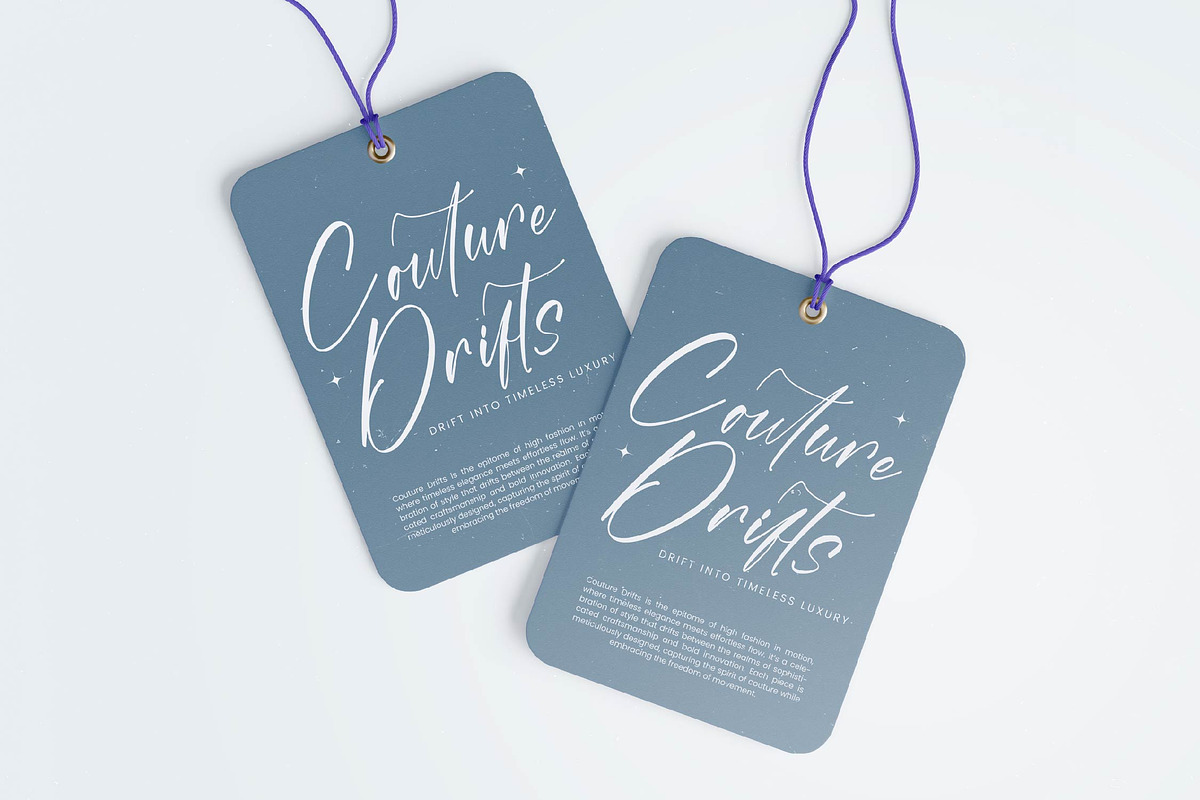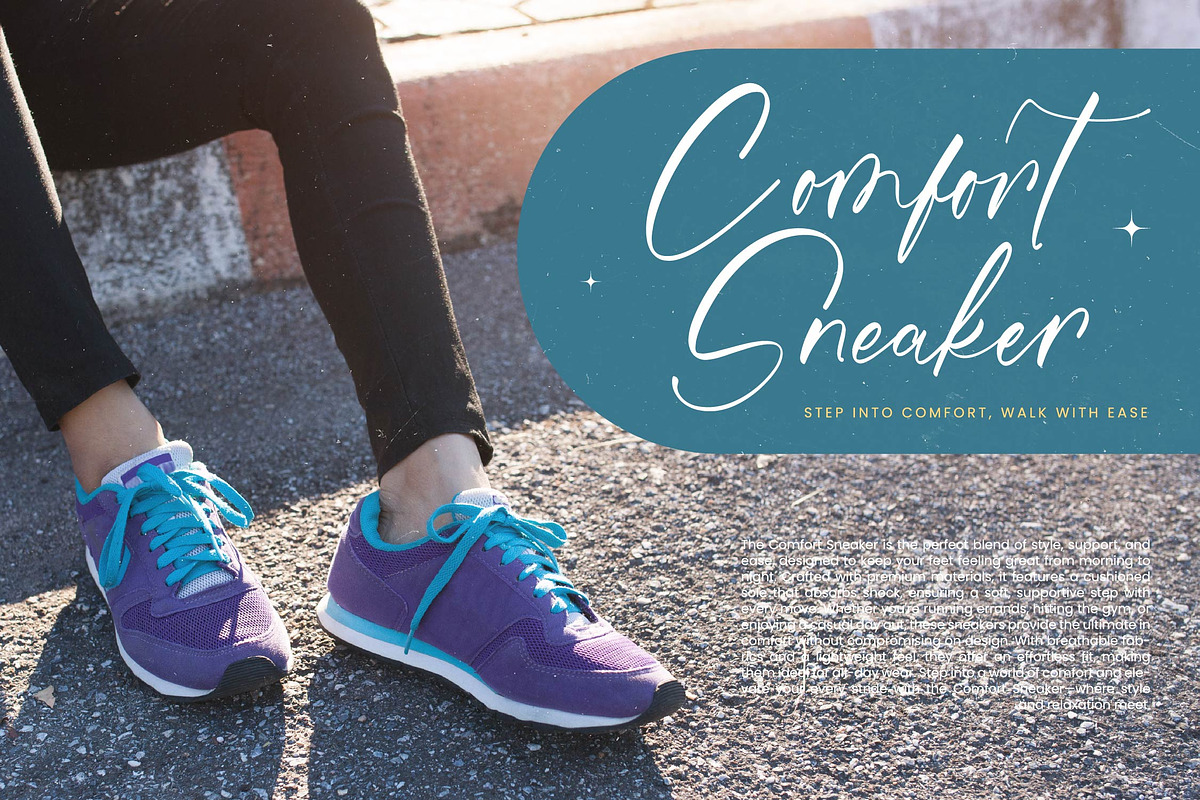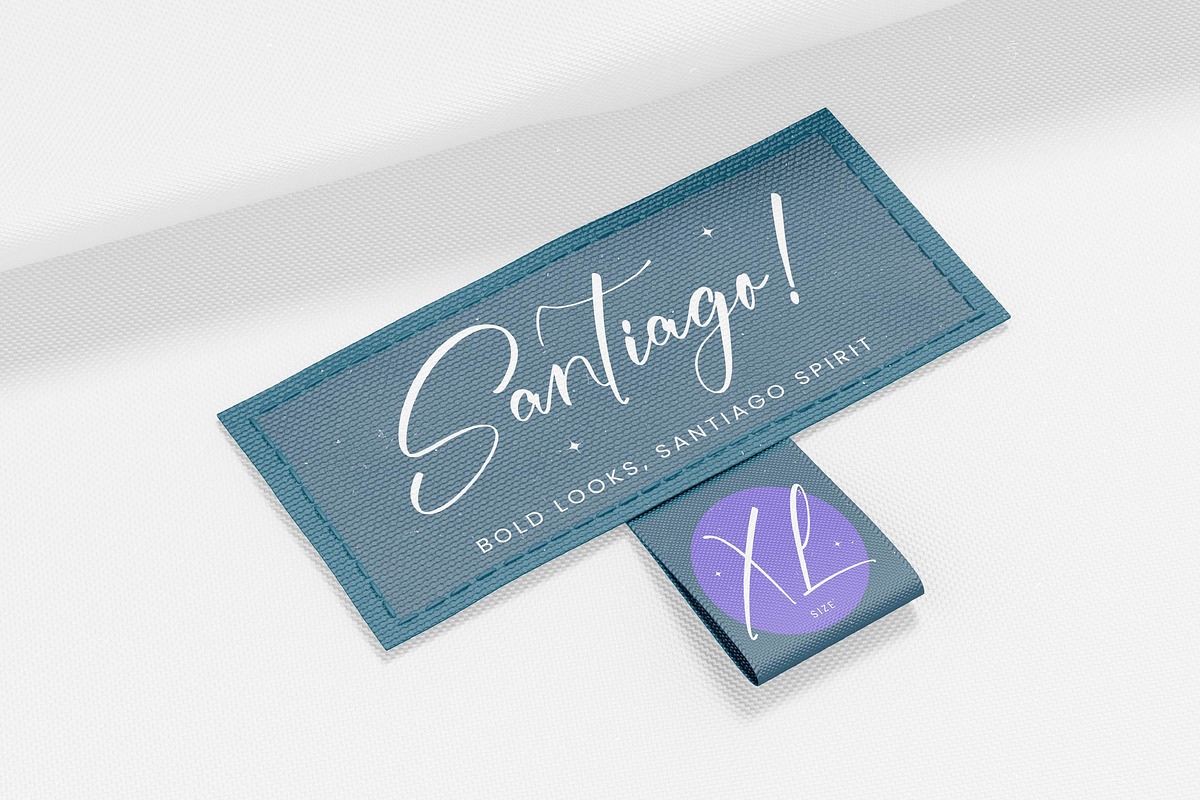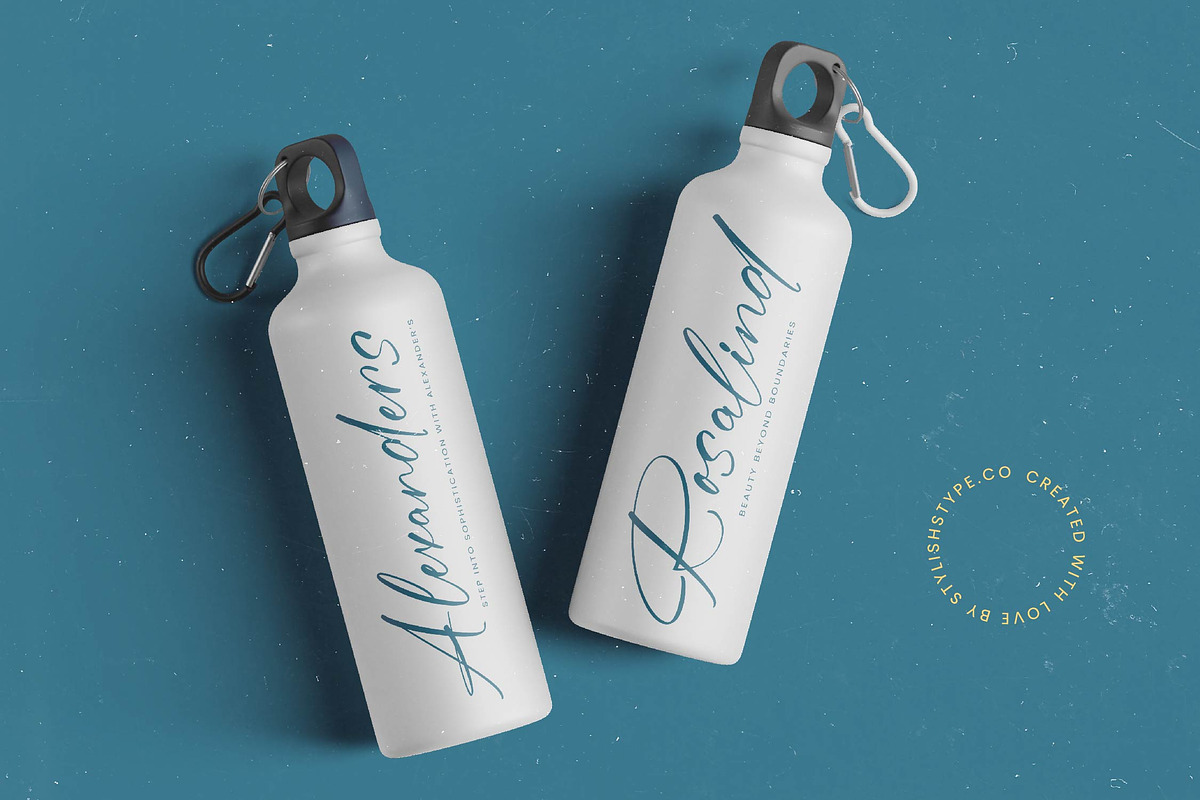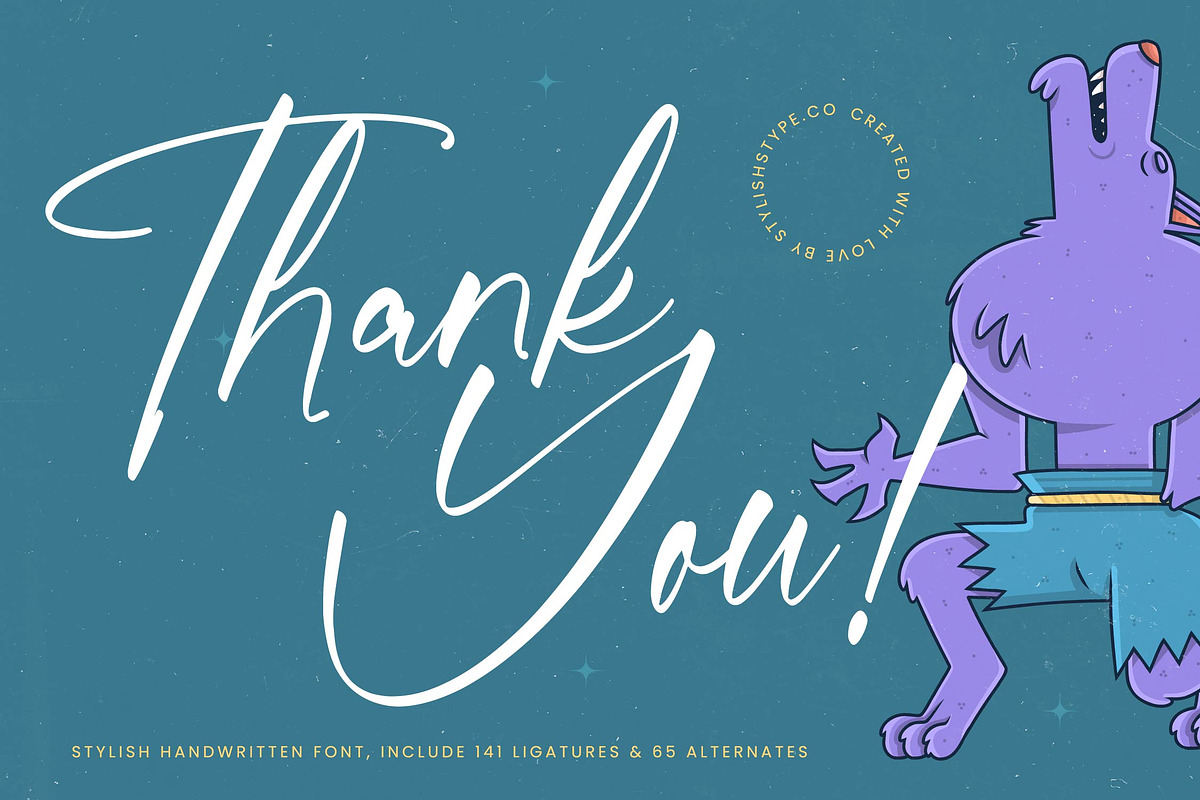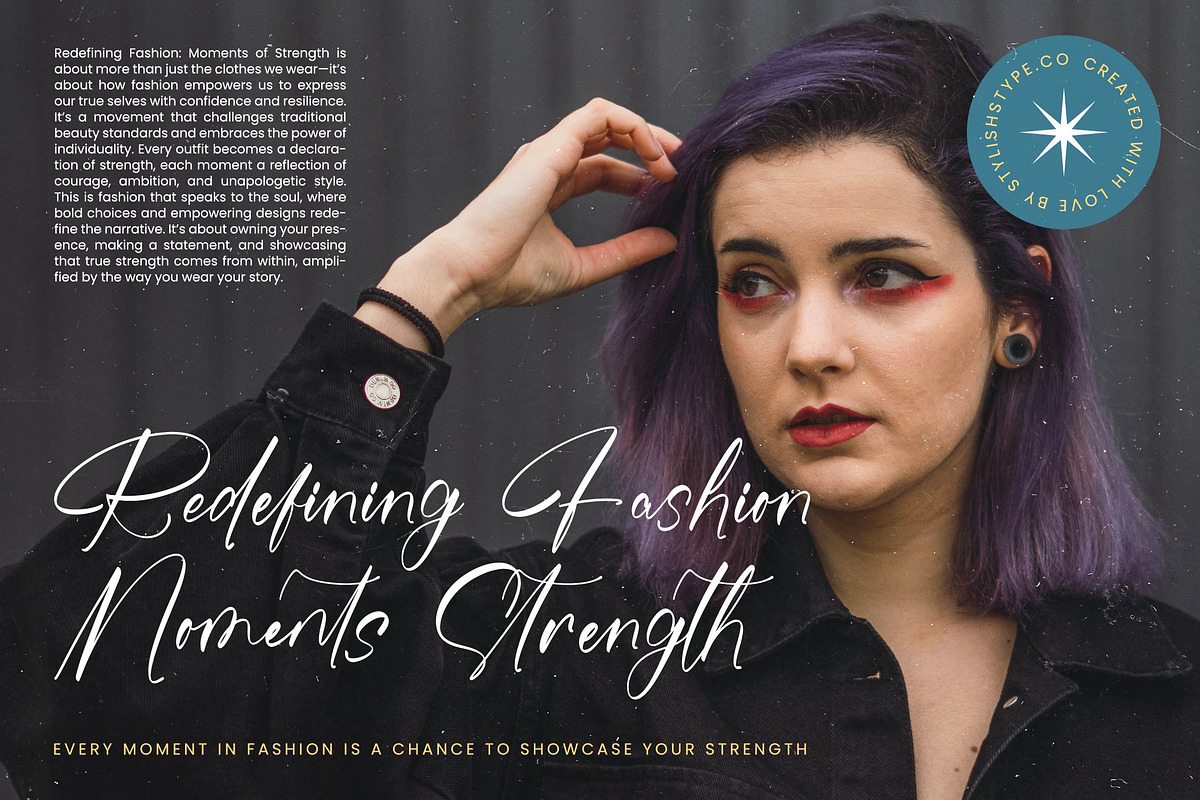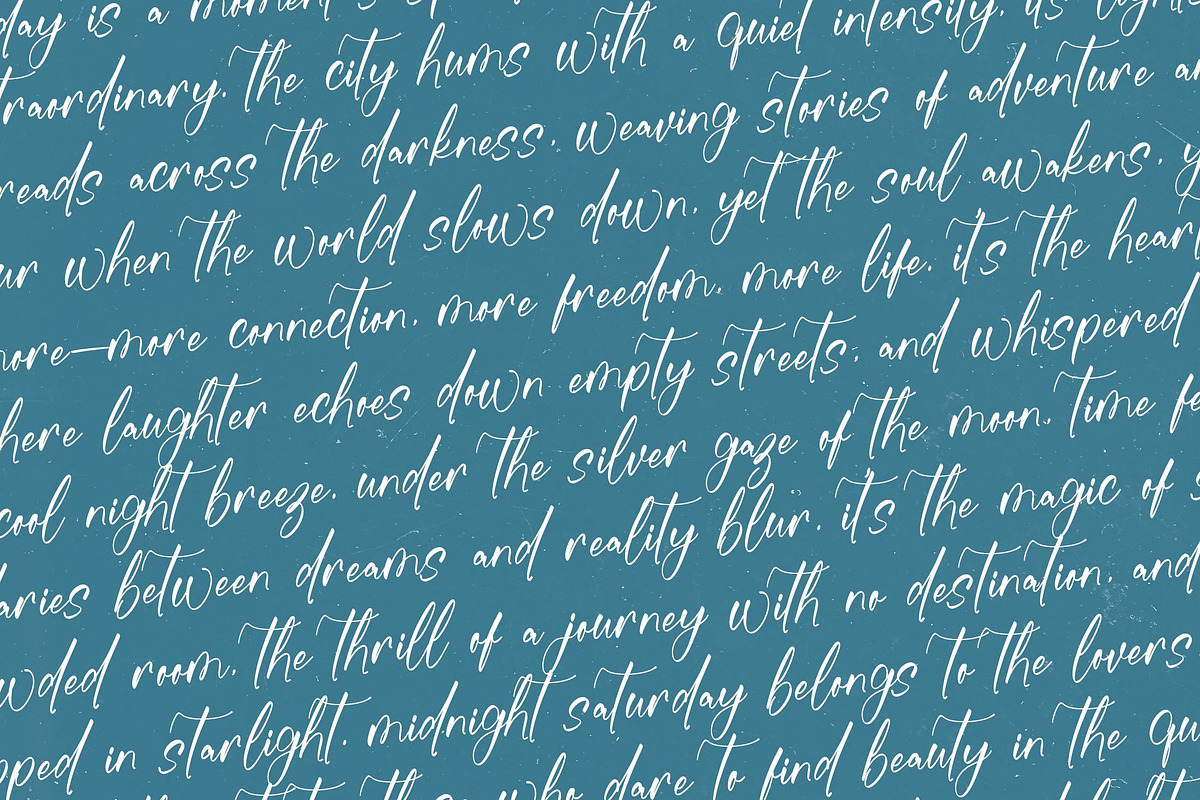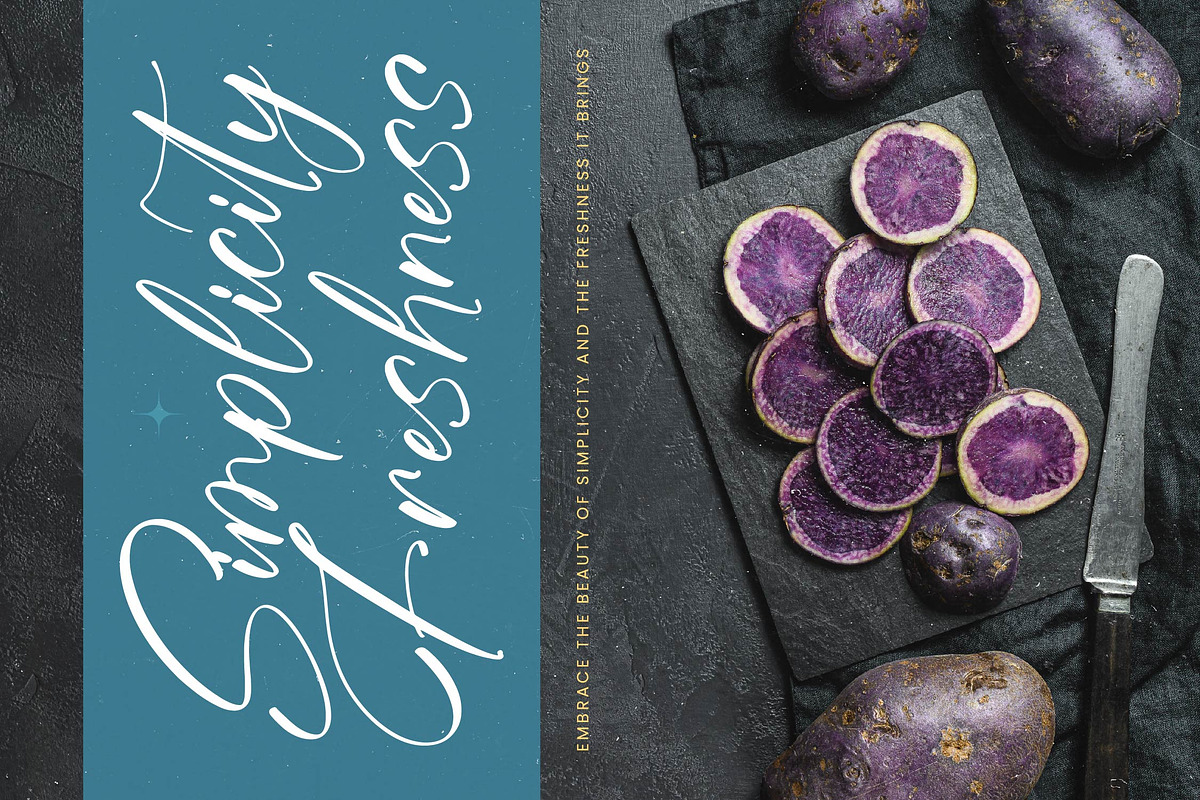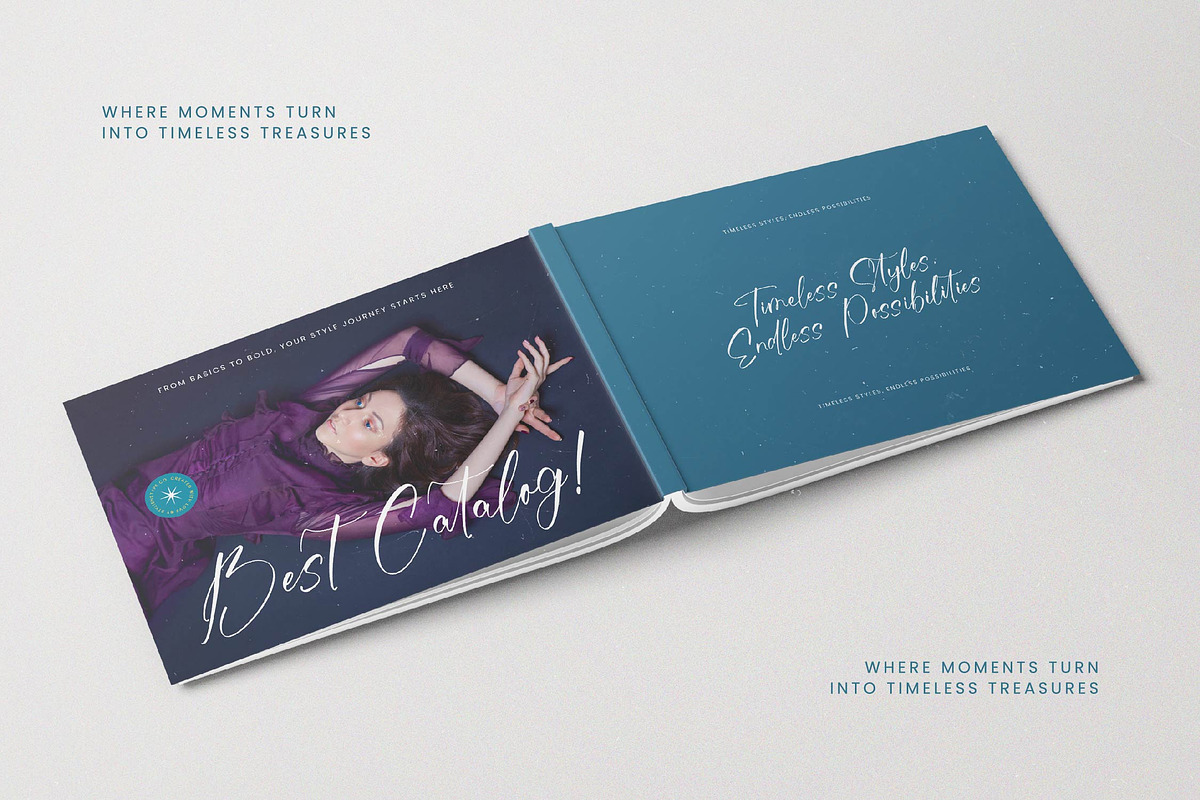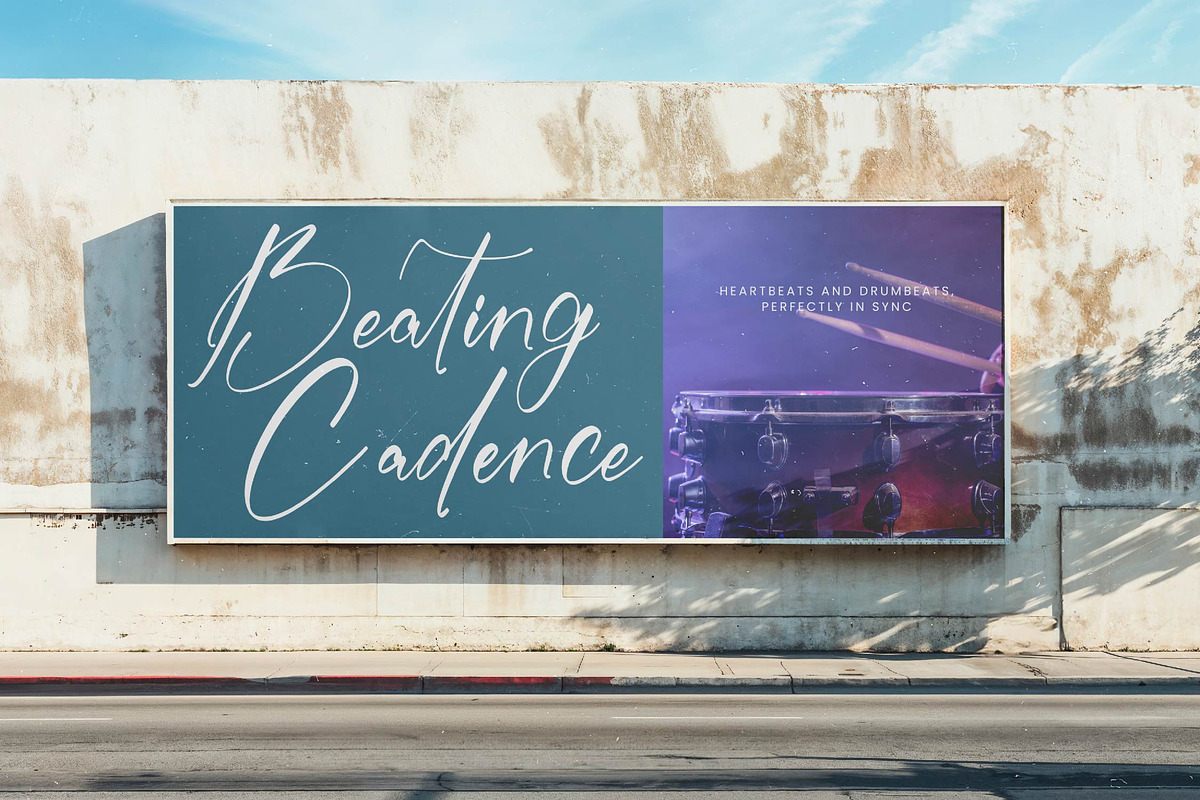
Midnight Saturday Stylish Font
Midnight Saturday - Stylish Handwritten Font , from Stylishtype.Co , Suitable for any projects such as: logos, branding projects, homeware designs, product packaging, mugs, quotes, posters, shopping bags, t-shirts, book covers, name card, invitation cards, greeting cards, label, photography, watermark, special events, and all your other luxury and beautiful projects that need a Luxury Script taste.
- 141 Ligature 65 Alternates & Swashes